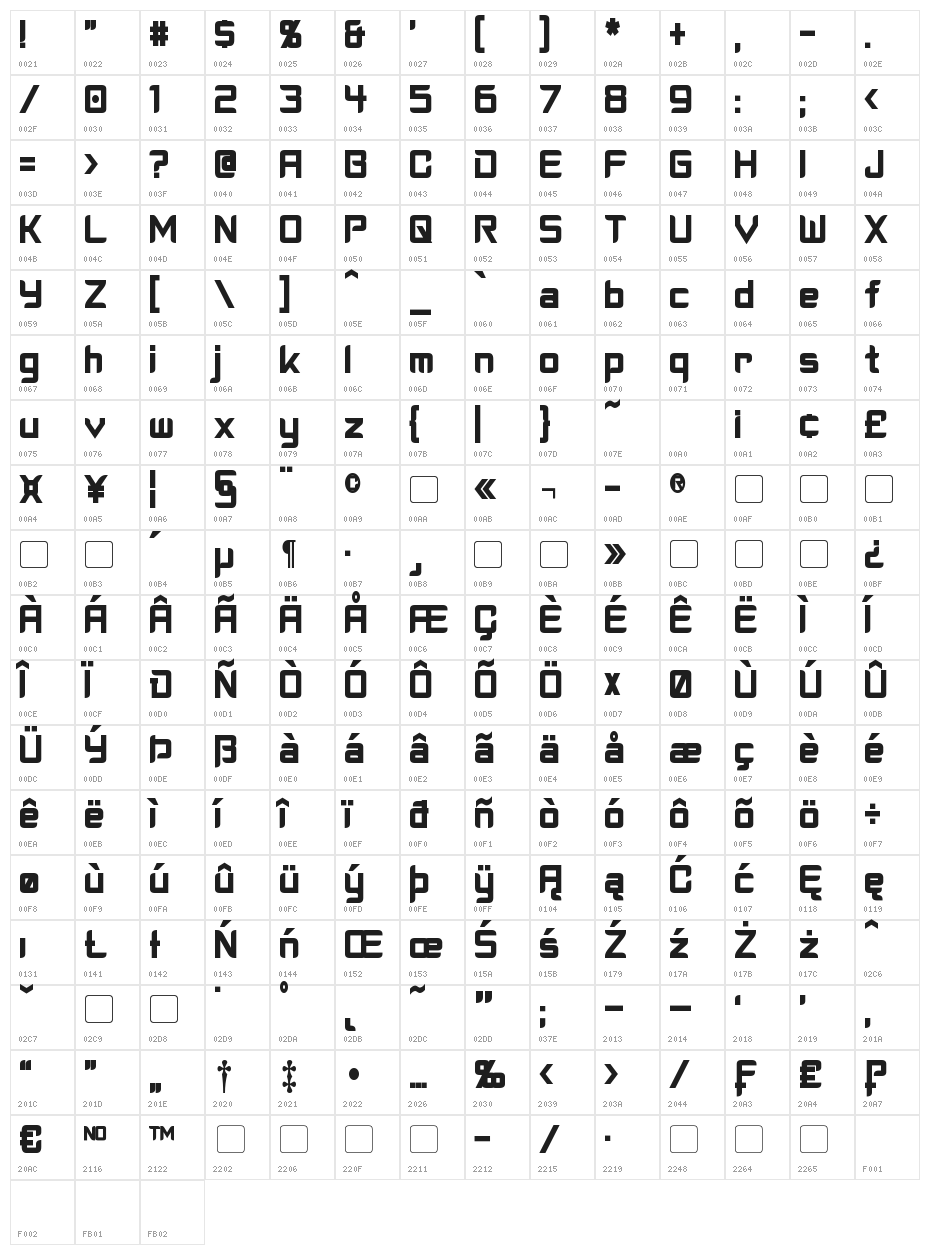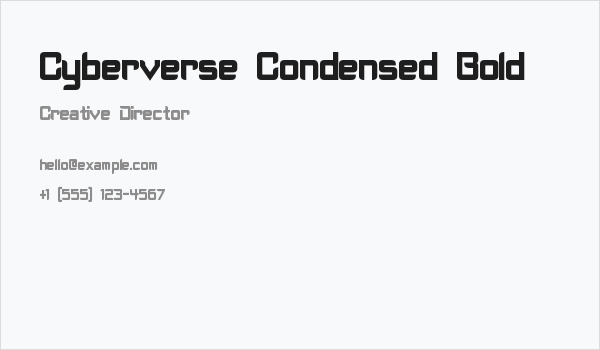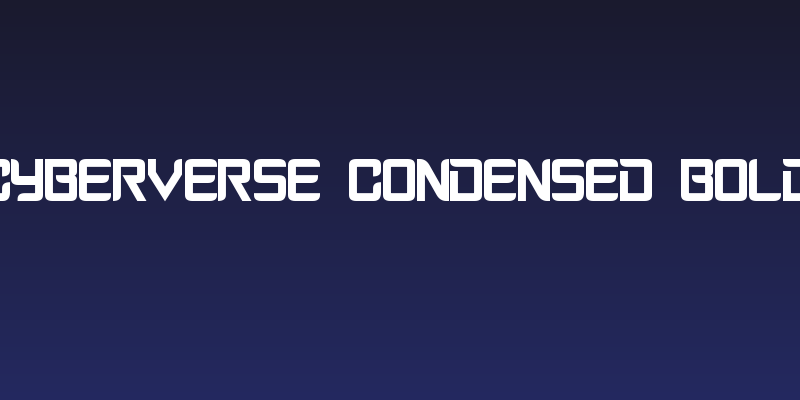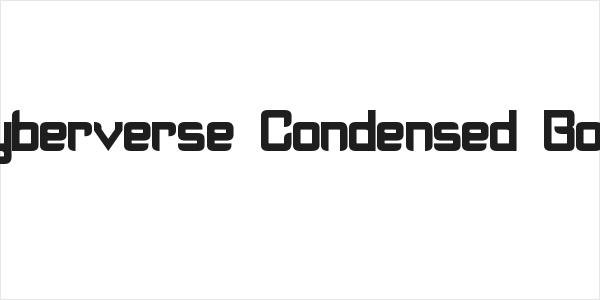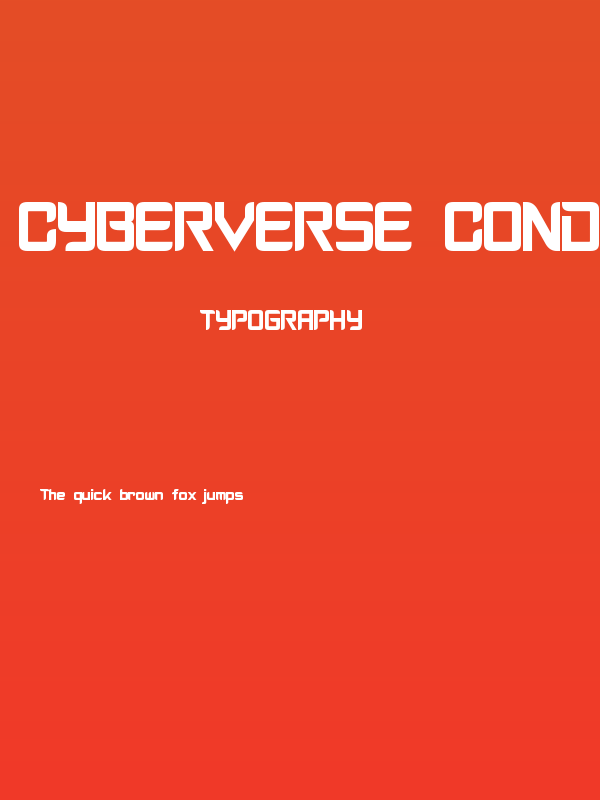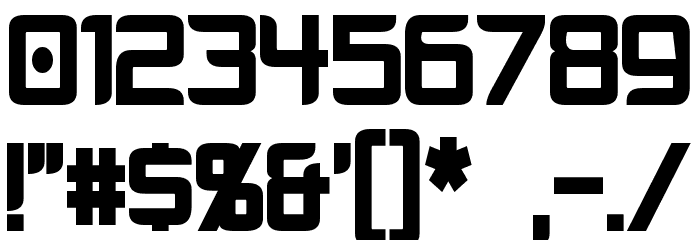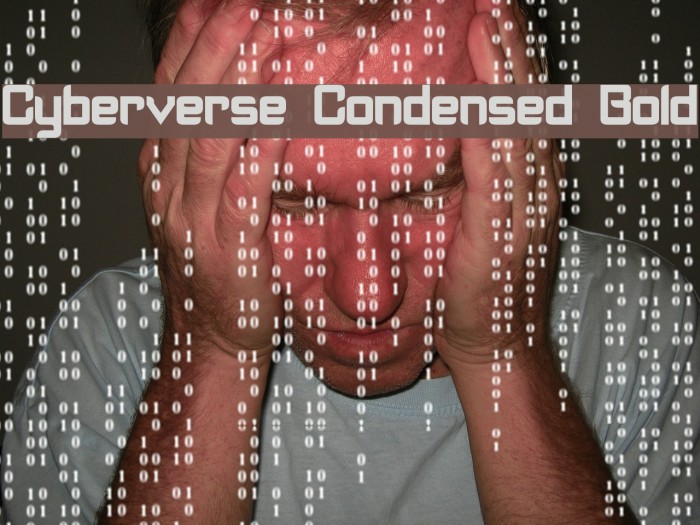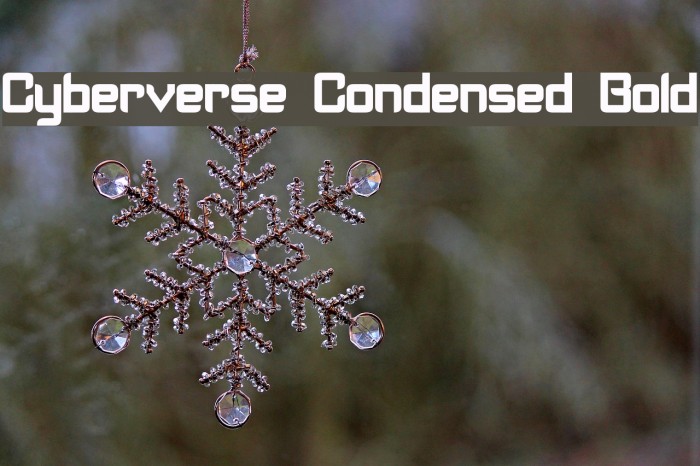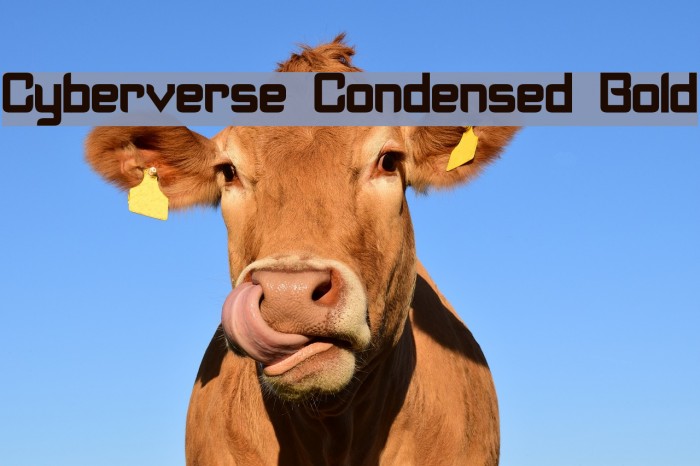
Cyberverse Condensed Bold Font
Cyberverse Condensed Bold Description
This font features a futuristic and geometric design with a condensed structure. The characters are bold and have a uniform stroke width, giving them a strong and impactful appearance. The uppercase and lowercase letters maintain a consistent style, with rounded edges and a slightly squared-off look, enhancing the modern aesthetic. The numerals and special characters follow the same design principles, ensuring a cohesive look across all glyphs. This font is ideal for projects that require a tech-savvy or sci-fi theme, offering a sleek and contemporary feel.